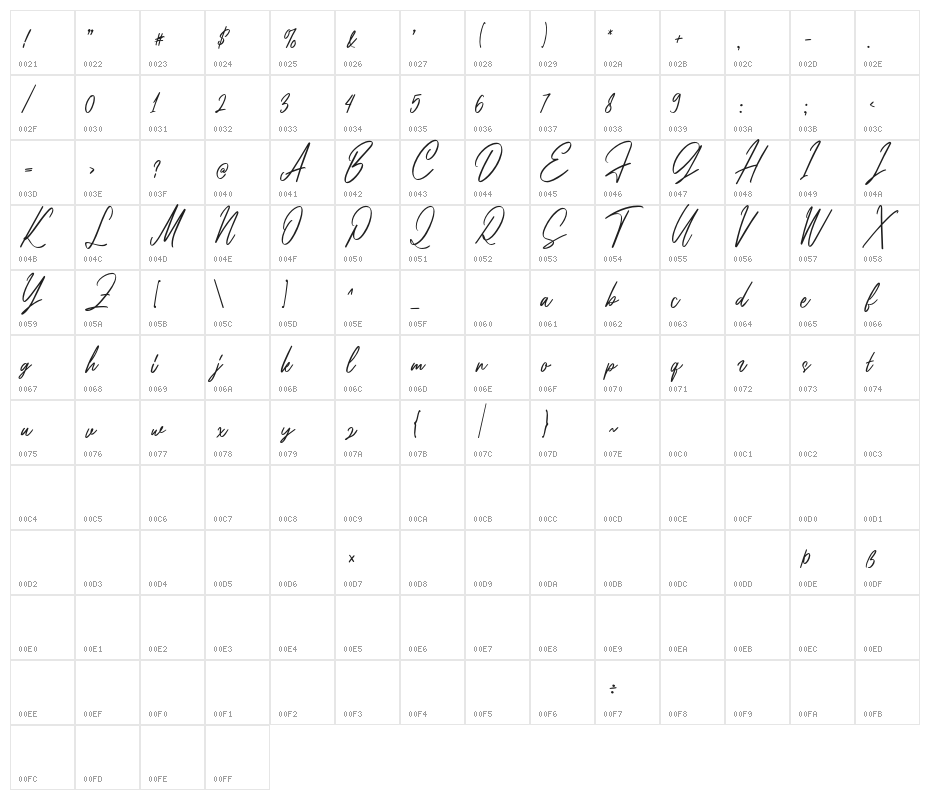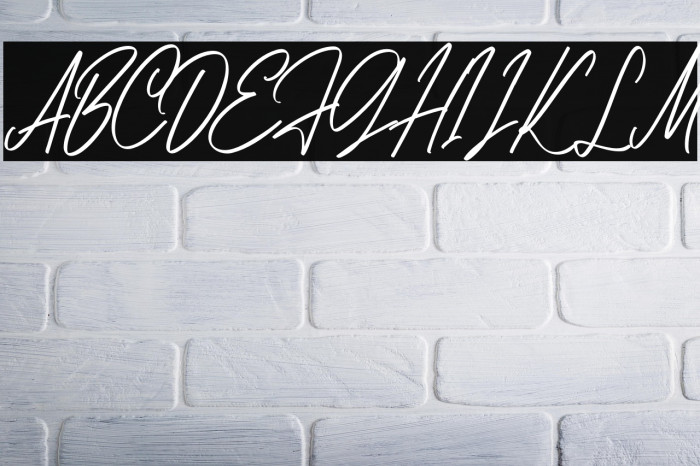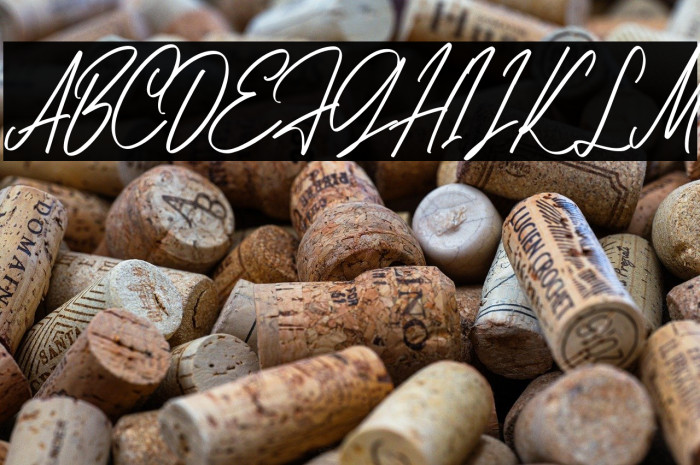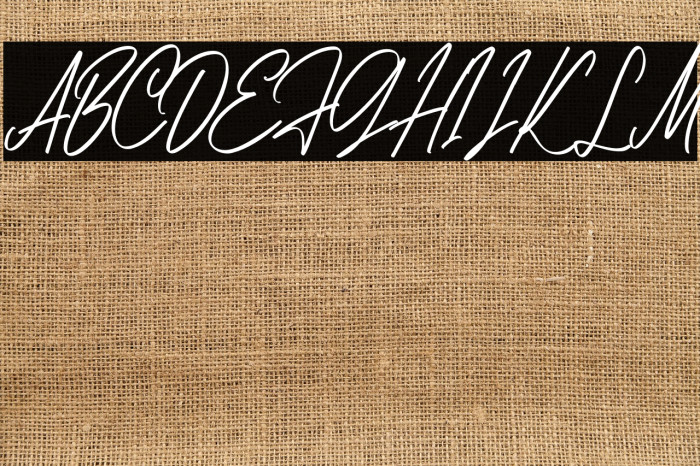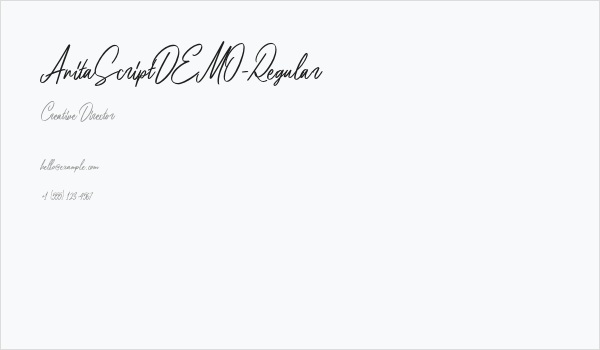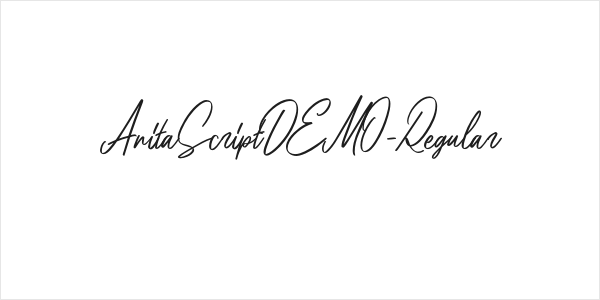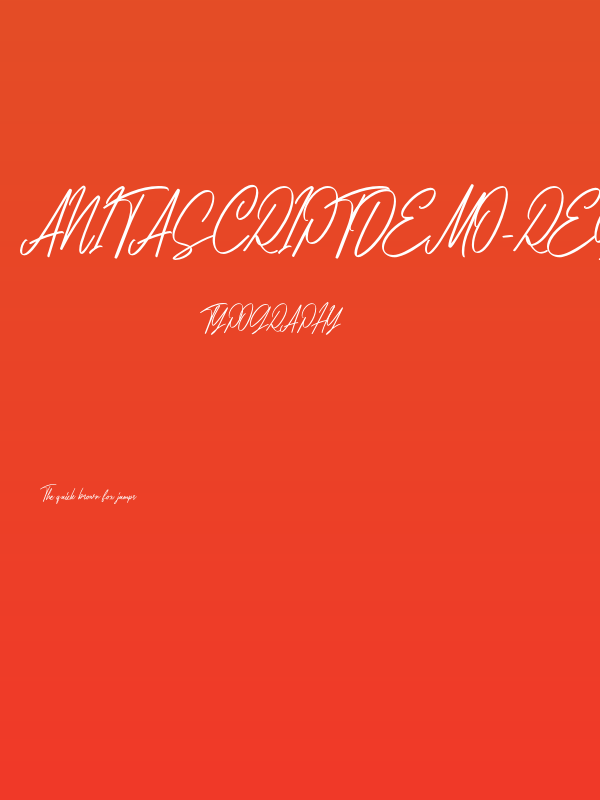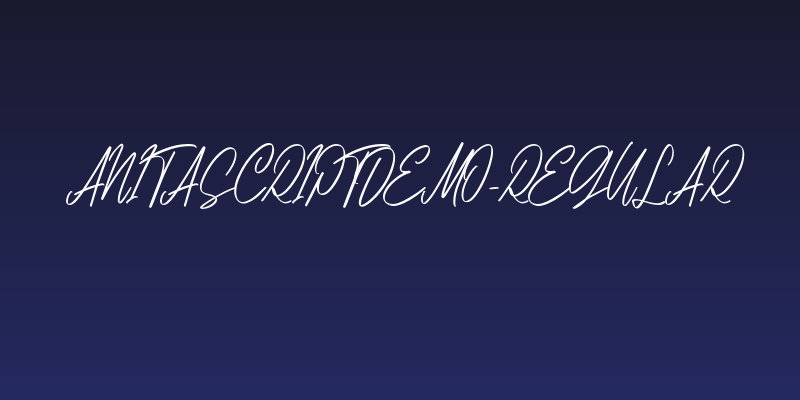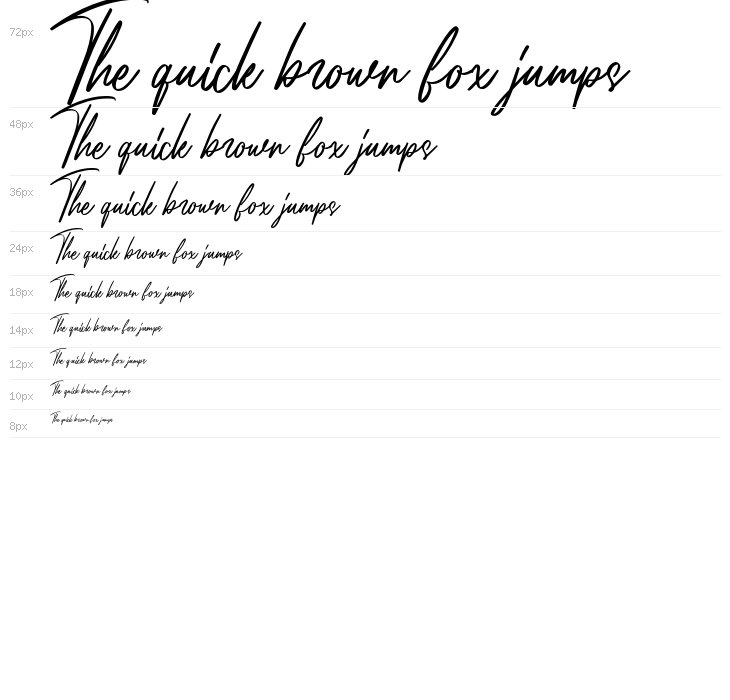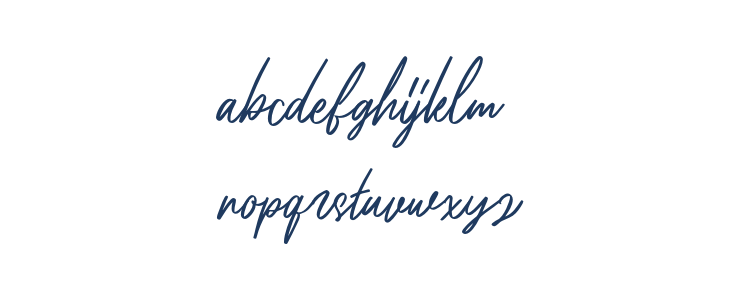
AnitaScriptDEMO-Regular Font
AnitaScriptDEMO-Regular Description
This font exudes a dynamic and elegant script style, characterized by its fluid and connected letterforms. The uppercase letters are tall and slightly slanted, giving a sense of movement and sophistication. The lowercase letters maintain a consistent flow, with smooth curves and loops that enhance its handwritten appeal. The numerals are designed to match the overall script style, ensuring uniformity across all characters. Special characters are integrated seamlessly, maintaining the font's cohesive look. This font is ideal for projects that require a personal touch, such as invitations, greeting cards, and branding materials.
| Overall Style | Elegant, Handwritten |
| Use Case | Logos, Headlines, Decorative text |
| Proposed Projects | Ideal for invitations, greeting cards, branding, and any project requiring a personal touch. |